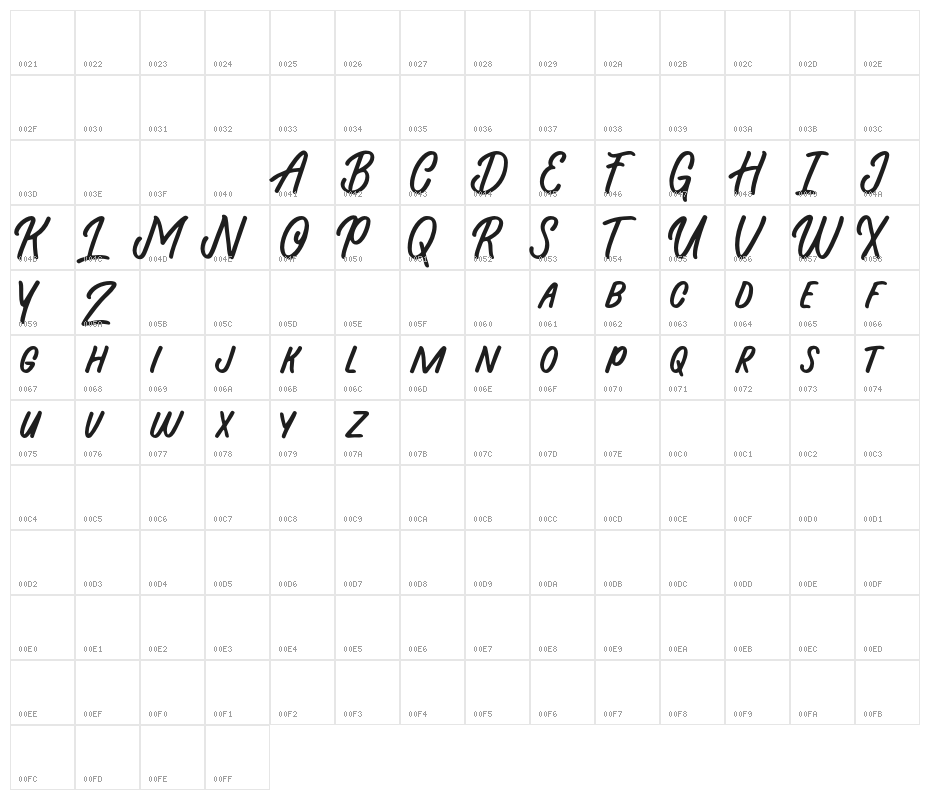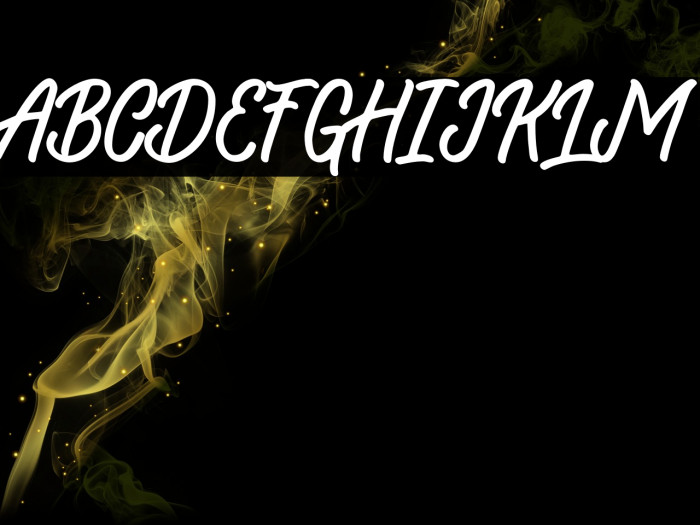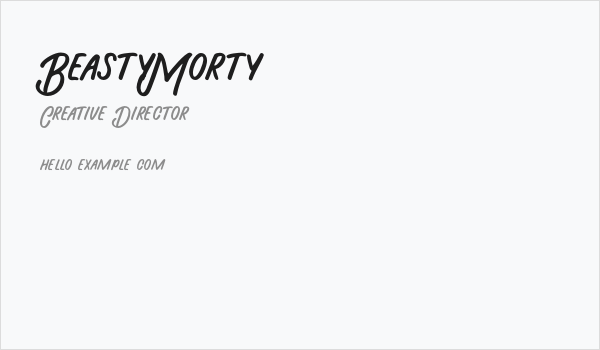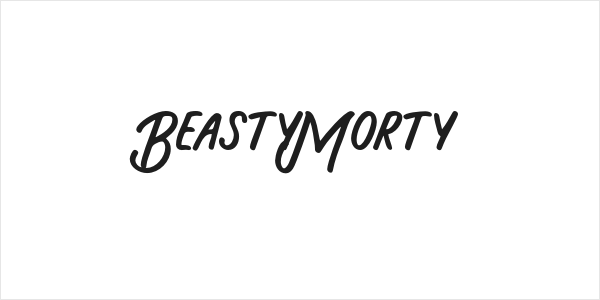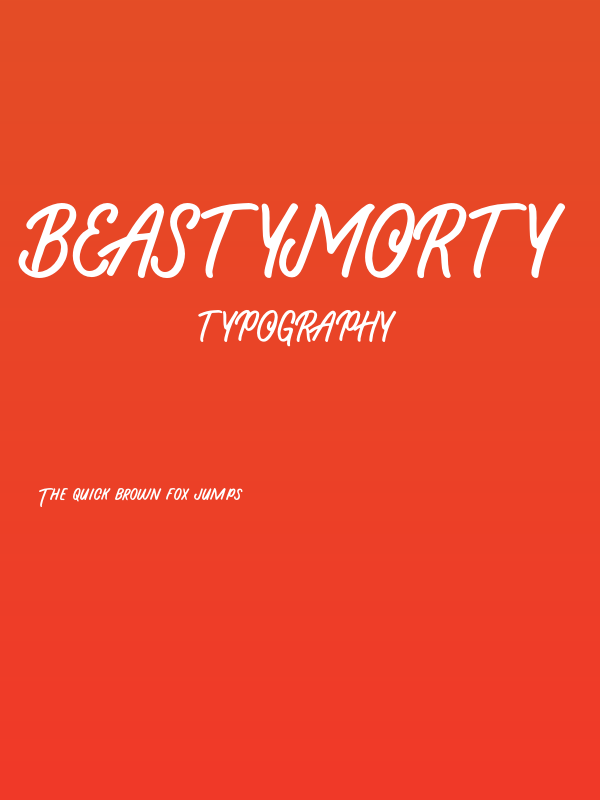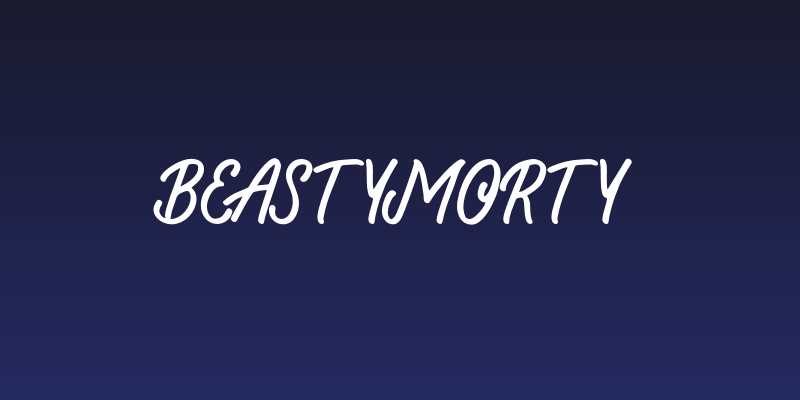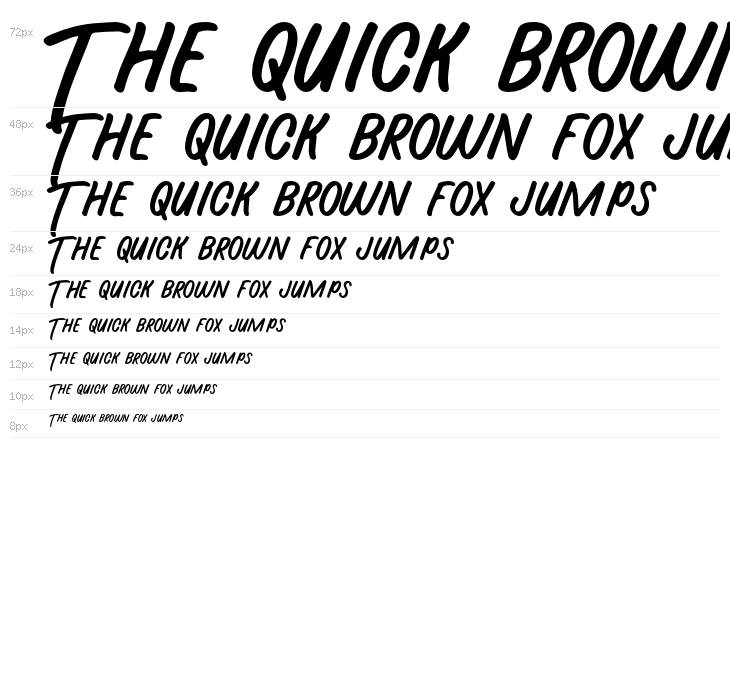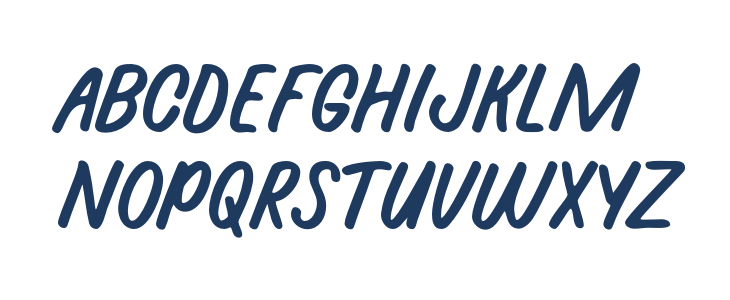
BeastyMorty Font
BeastyMorty Description
This font features a bold and expressive style with a handwritten script appearance. The uppercase letters have a flowing, cursive quality, while the lowercase letters maintain a consistent and smooth stroke. The bold version of the font presents a more impactful and solid look, suitable for attention-grabbing designs. The characters are slightly slanted, adding a dynamic and energetic feel. The overall design is modern and stylish, making it ideal for creative projects that require a personal touch.
Use CaseLogos, Headlines, Invitations
Proposed ProjectsIdeal for branding, logos, invitations, and social media graphics where a personal and dynamic touch is desired.